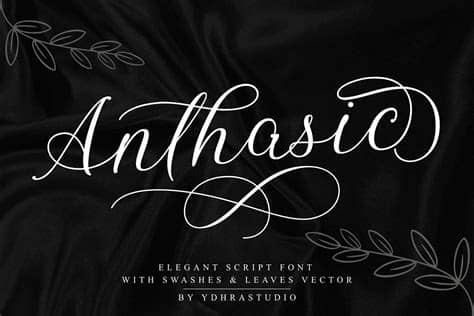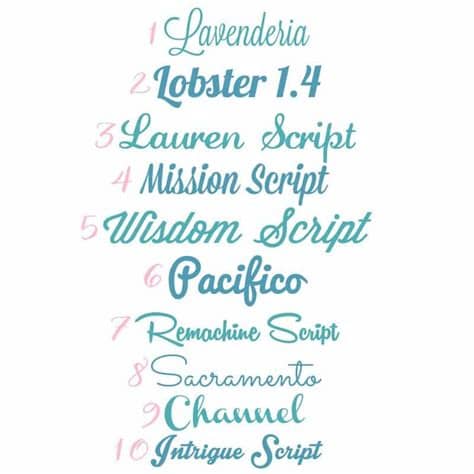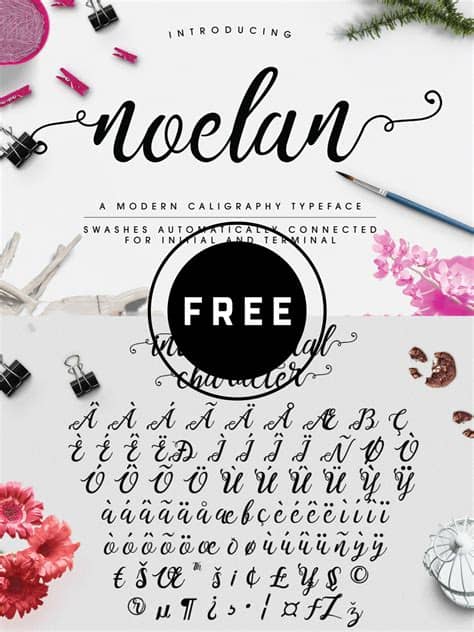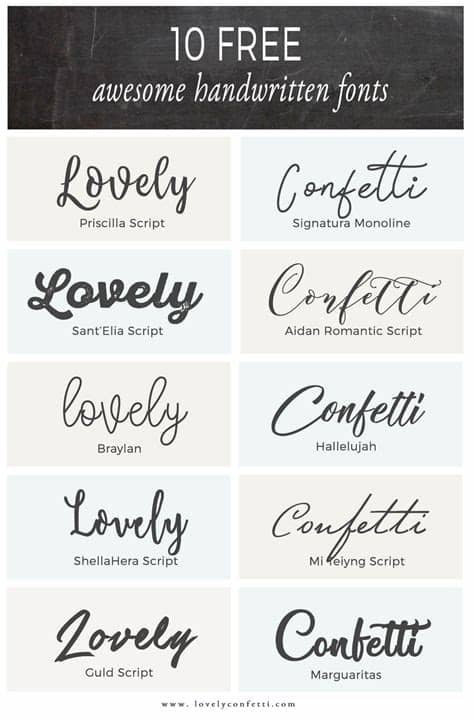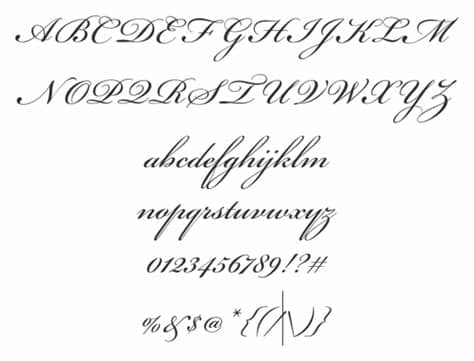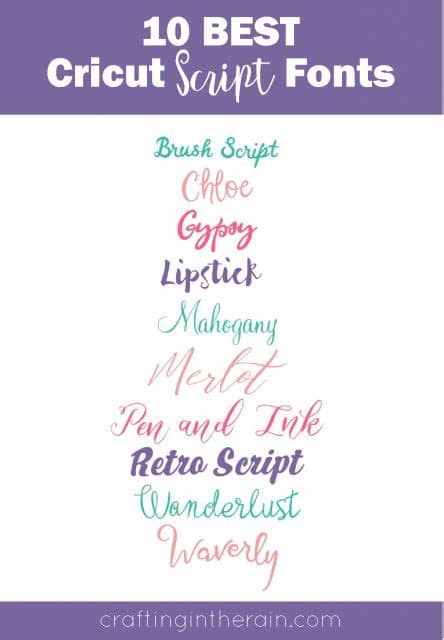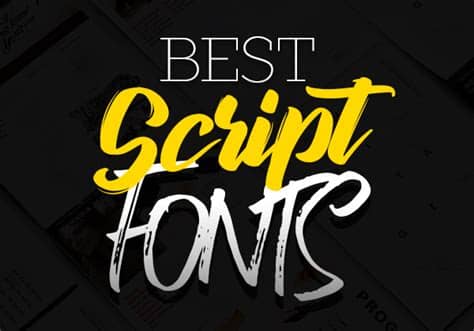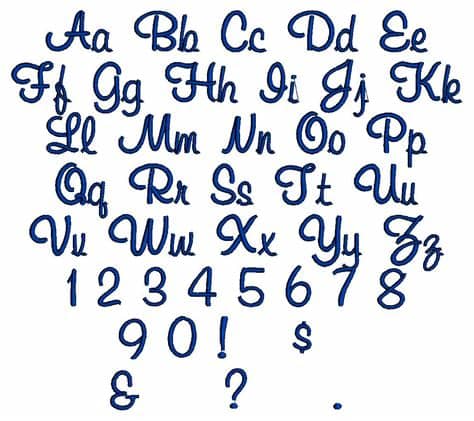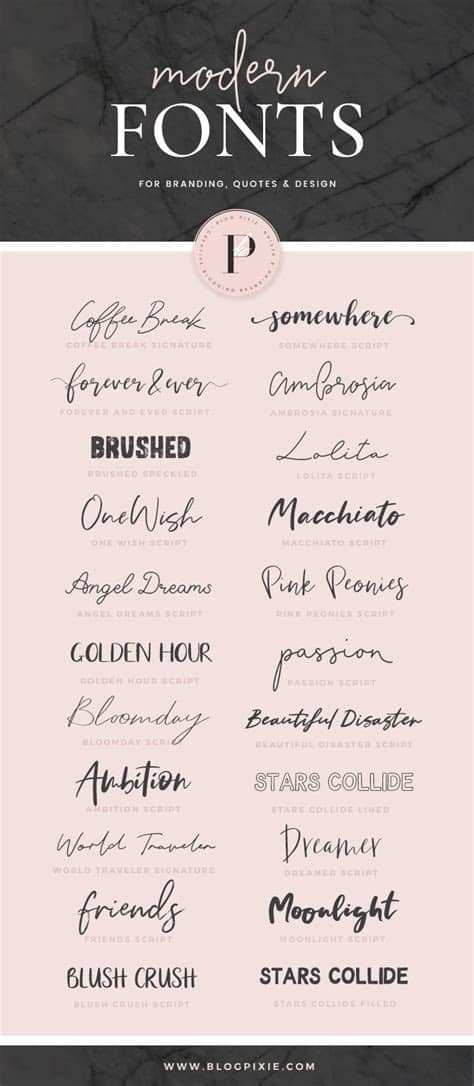
Best Script Fonts Bringhurst / 10+ Bold Free Script Fonts for Headings & 2016 Graphic ... / Some scripts are more formal like elegant calligraphy, while others are casual like cursive handwriting.. This condensed upright connecting script has a classic vibe to it. Classics (baskerville, futura, garamond) alongside hot new fonts (winden, freigeist,aestetico). Script typefaces are based upon the varied and often fluid stroke created by handwriting, pretty much like the cursive fonts just typically more elegant. Some scripts are more formal like elegant calligraphy, while others are casual like cursive handwriting. This html font has been a standard for movie screenplays, as well.
Typography is currently playing a central role in web design, with progressive improvements like variable fonts, css shapes, flexbox, css grids and subgrid definitively changing the way we work with typography in web design. 1,718,021 downloads (1,306 yesterday) 9 comments demo. It's a beautiful connecting script with elegant uppercase characters. Google webfonts and bringhurst style. Classics (baskerville, futura, garamond) alongside hot new fonts (winden, freigeist,aestetico).
Some scripts are more formal like elegant calligraphy, while others are casual like cursive handwriting. Script typefaces are based upon the varied and often fluid stroke created by handwriting, pretty much like the cursive fonts just typically more elegant. This font would pair well with a minimal sans serif font to create powerful engaging designs. Latin script (free fonts) latin script (handwritten fonts) turkish fonts at fontlibrary. Definitely best suited to display and points of emphasis, this could be a great addition to your font library. Using one of these two webfonts provides ample resources for designers to apply the principles outlined by bringhurst.* see footnote the included examples. This condensed upright connecting script has a classic vibe to it. Looking for stylish free script fonts for a signature, a watermark for your photos, or a hip project that's missing something?
Better together script by katsia jazwinska.
Classics (baskerville, futura, garamond) alongside hot new fonts (winden, freigeist,aestetico). You can use these fonts to create custom styles. Рукописные шрифты handwritten, script fonts. The best brush fonts and best script fonts can turn any creative project into a true. Latin script (free fonts) latin script (handwritten fonts) turkish fonts at fontlibrary. Using one of these two webfonts provides ample resources for designers to apply the principles outlined by bringhurst.* see footnote the included examples. Loveya script is a beautiful handmade script font, modern calligraphy & fresh typeface. This font would pair well with a minimal sans serif font to create powerful engaging designs. Including serif, sans serif, script, display, brush and grotesque. Some scripts are more formal like elegant calligraphy, while others are casual like cursive handwriting. Шрифт hello dina script cyrillic. Шрифт mistletoe font duo cyrillic. The font features both uppercase and lowercase letters as well as numbers and punctuations.
Loveya script suitable for logo, branding, invitation, greeting card, signature, poster and any design that you. If you like this site and find it useful, help us to make it better by giving feedback, suggesting improvements or by donation. Selection of hand picked free and premium fonts for various design purposes. 1,718,021 downloads (1,306 yesterday) 9 comments demo. A collection of the best script fonts to use in 2020.
Blenda script is a free experimental font inspired by lobster font, a bold vintage script. This modern handwriting font features a script design making it a great choice for crafting everything from logos, signatures, poster titles, and more. Collection by best design resources • last updated 7 weeks ago. Some scripts are more formal like elegant calligraphy, while others are casual like cursive handwriting. Dancing script is a casual handwriting font that combines thin and thick lines for a calligraphy effect. Though brush script mt is elegant and sophisticated, it might. They are organized into highly regular formal types similar to cursive writing and looser, more casual scripts. Classics (baskerville, futura, garamond) alongside hot new fonts (winden, freigeist,aestetico).
Google webfonts and bringhurst style. Collection by best design resources • last updated 7 weeks ago. Check out this beautiful font! This modern handwriting font features a script design making it a great choice for crafting everything from logos, signatures, poster titles, and more. Google provides a wide range of webfonts, two of which provide a full spectrum of styles. This html font has been a standard for movie screenplays, as well. This font would pair well with a minimal sans serif font to create powerful engaging designs. Typography is currently playing a central role in web design, with progressive improvements like variable fonts, css shapes, flexbox, css grids and subgrid definitively changing the way we work with typography in web design. Script font is a broad style that refers to any typeface that looks like it was drawn by hand. Including serif, sans serif, script, display, brush and grotesque. Loveya script suitable for logo, branding, invitation, greeting card, signature, poster and any design that you. Looking for stylish free script fonts for a signature, a watermark for your photos, or a hip project that's missing something? It's great for retro and informal designs, and.
Font name newest most downloads. You can use these fonts to create custom styles. Loveya script is a beautiful handmade script font, modern calligraphy & fresh typeface. Check out this beautiful font! Шрифт mistletoe font duo cyrillic.
They are organized into highly regular formal types similar to cursive writing and looser, more casual scripts. Looking for stylish free script fonts for a signature, a watermark for your photos, or a hip project that's missing something? The font features both uppercase and lowercase letters as well as numbers and punctuations. Download and install free script fonts of the best quality from free fonts and use on your own personal and business related design purposes. It's a beautiful connecting script with elegant uppercase characters. Though brush script mt is elegant and sophisticated, it might. Published on 26 dec 2018.stay connected i'll inform you about every other tech news, hacks and products.like our page on facebook 🌎. Create cool and modern designs using handwritten and calligraphic lettering style fonts.
Demo donationware free free for personal use public domain, gpl, ofl shareware. Script font is a broad style that refers to any typeface that looks like it was drawn by hand. Published on 26 dec 2018.stay connected i'll inform you about every other tech news, hacks and products.like our page on facebook 🌎. They are organized into highly regular formal types similar to cursive writing and looser, more casual scripts. You can use these fonts to create custom styles. A collection of the best script fonts to use in 2020. Google fonts now supports variable fonts. Loveya script is a beautiful handmade script font, modern calligraphy & fresh typeface. It's a beautiful connecting script with elegant uppercase characters. Though brush script mt is elegant and sophisticated, it might. Шрифт hello dina script cyrillic. Latin script (free fonts) latin script (handwritten fonts) turkish fonts at fontlibrary. This condensed upright connecting script has a classic vibe to it.